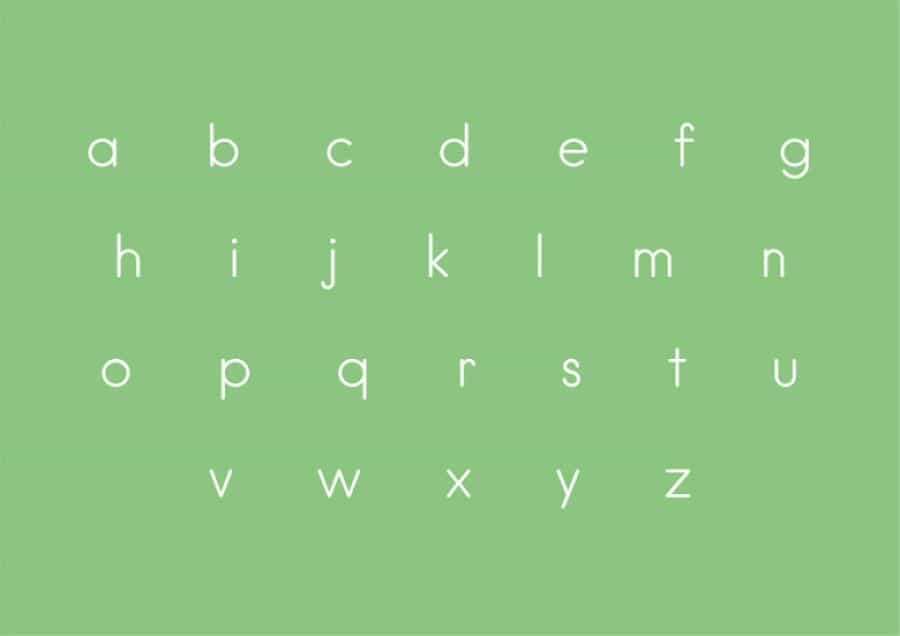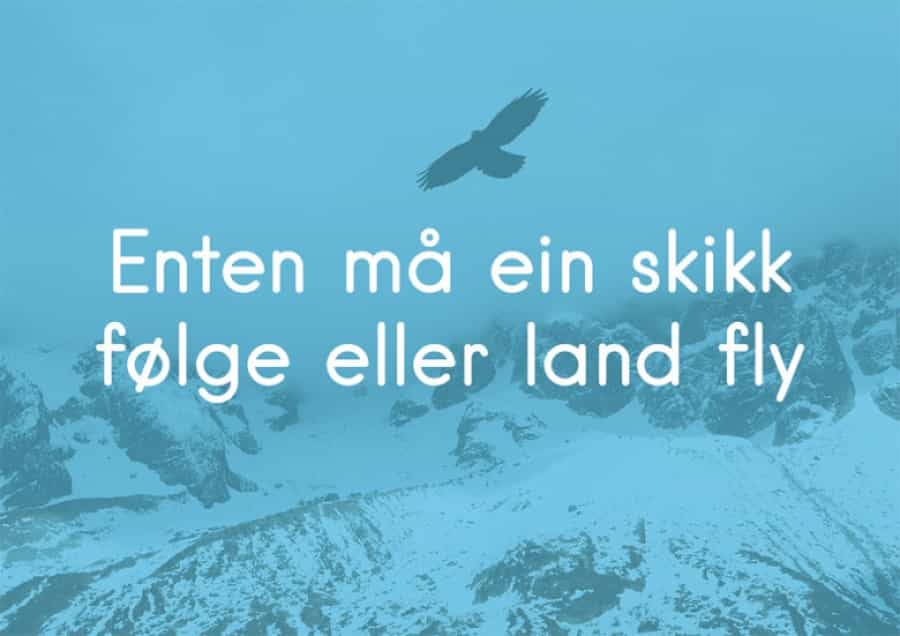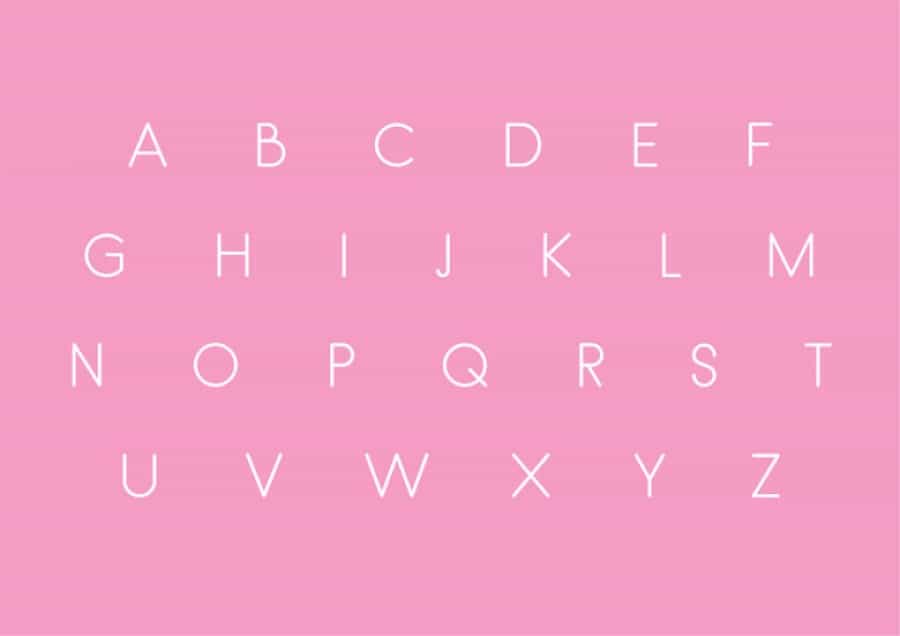
Savoir Fonction is an elegant and simple font with a system of hierarchization of characters by their importance in language. Described as free and with round edges, it appears that Hanken can be used in literally anything, be it logo, poster, T-Shirt, or anything in between. There are two families of Hanken font: Font and Lightweights – while Font is the commonly used term though this font is referred to as ‘Book’.